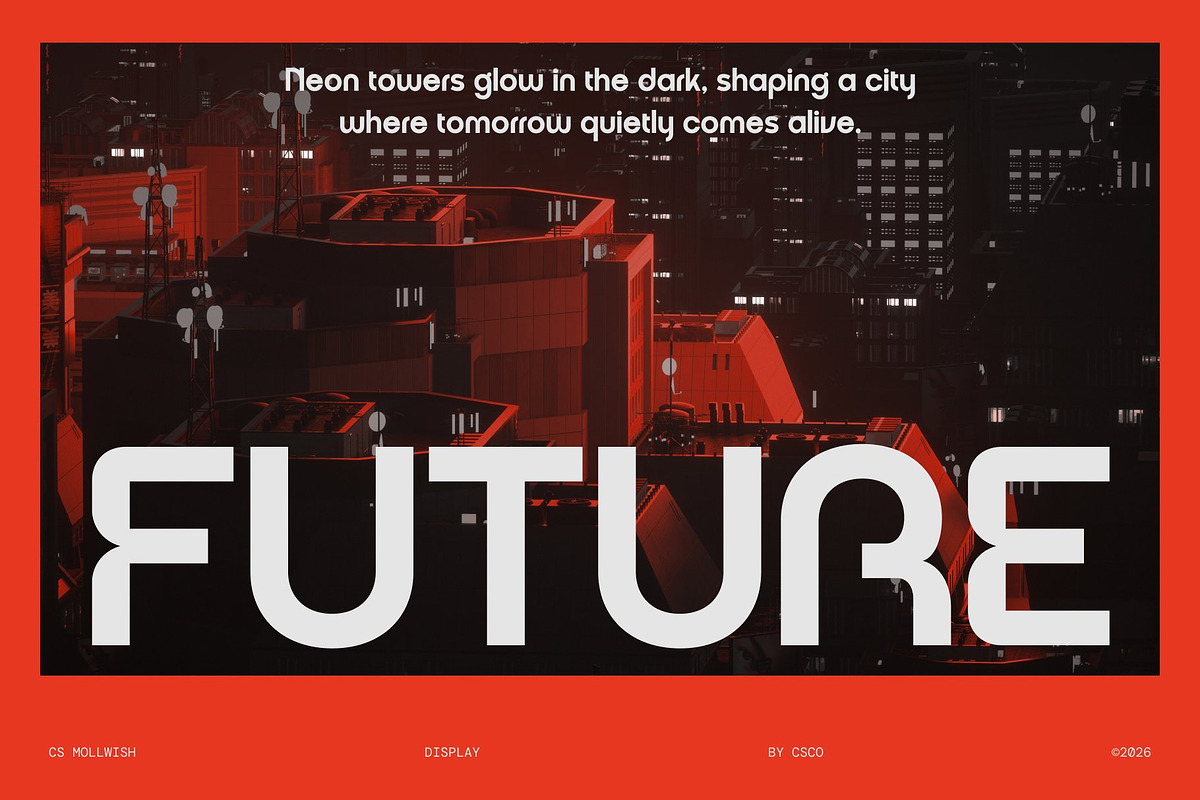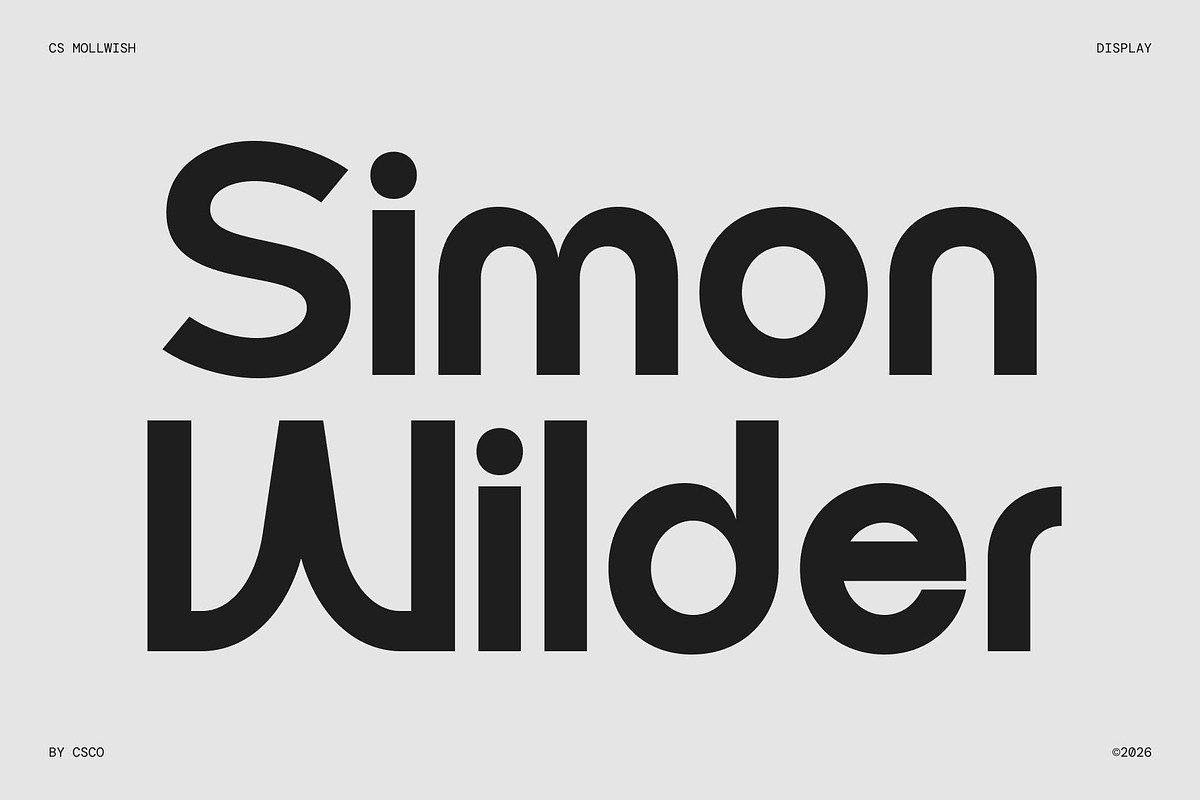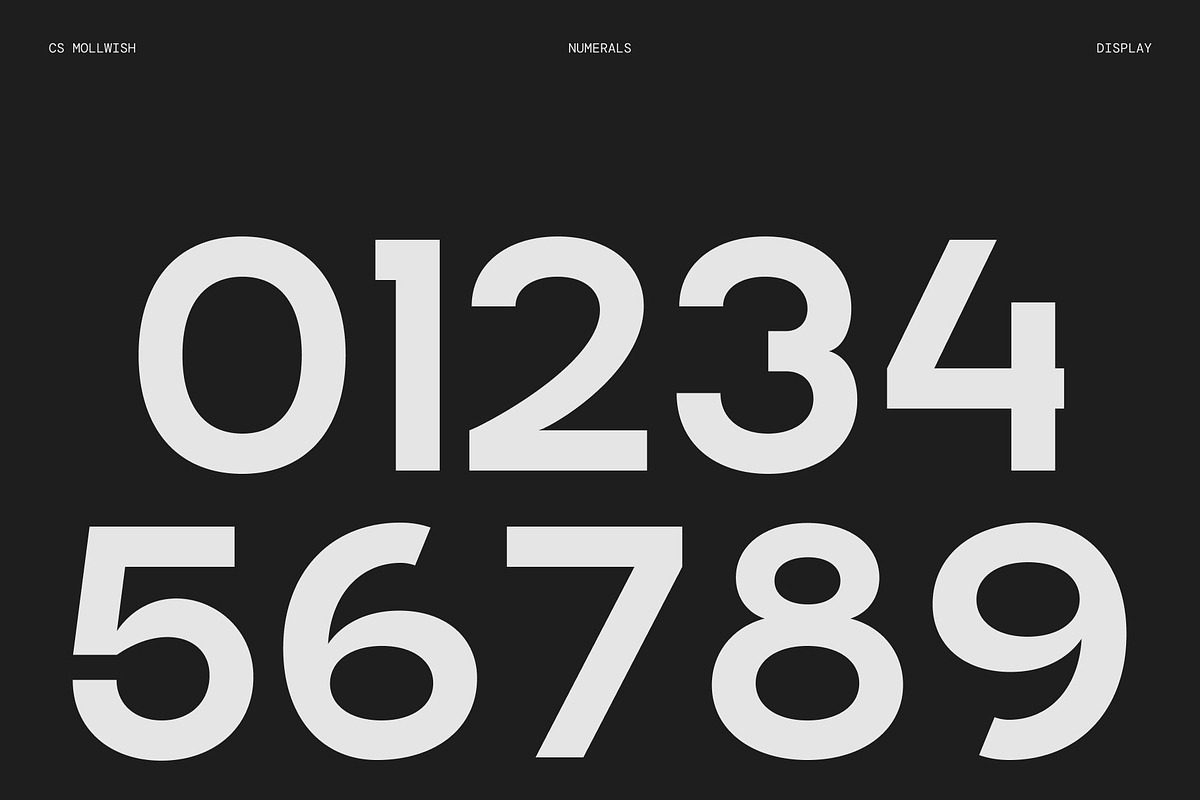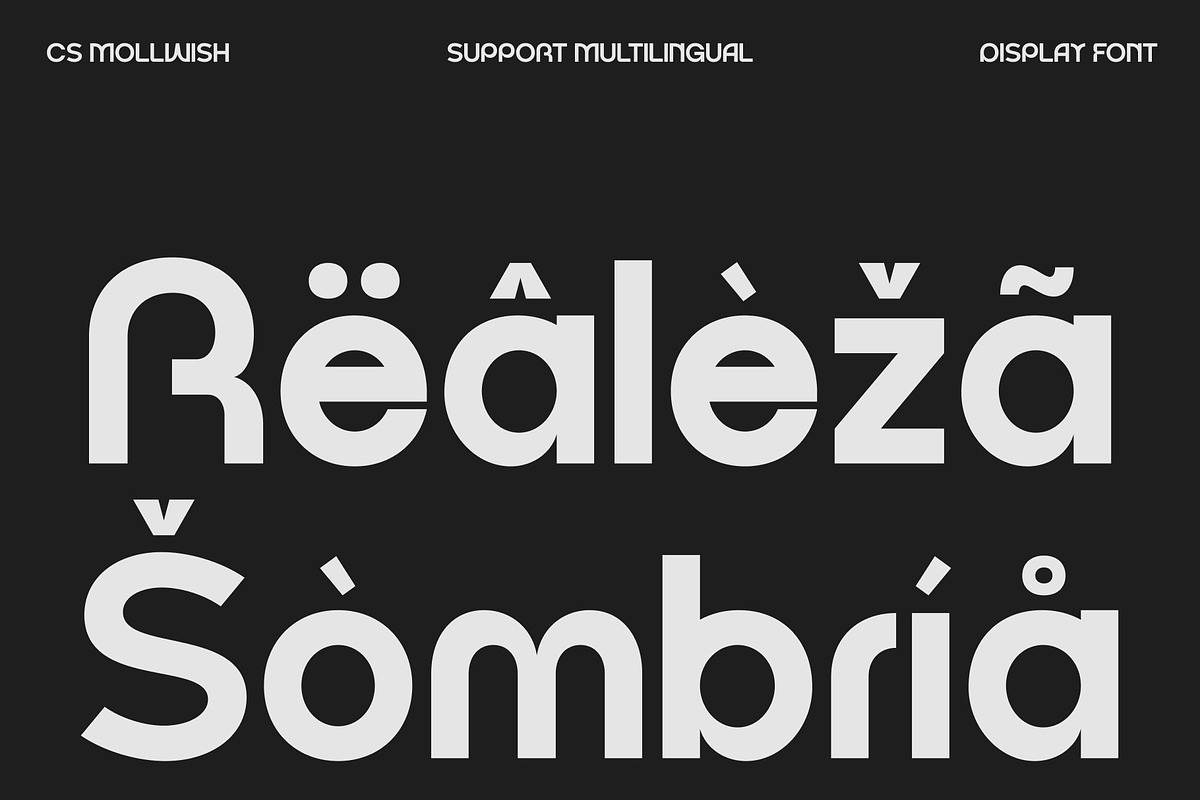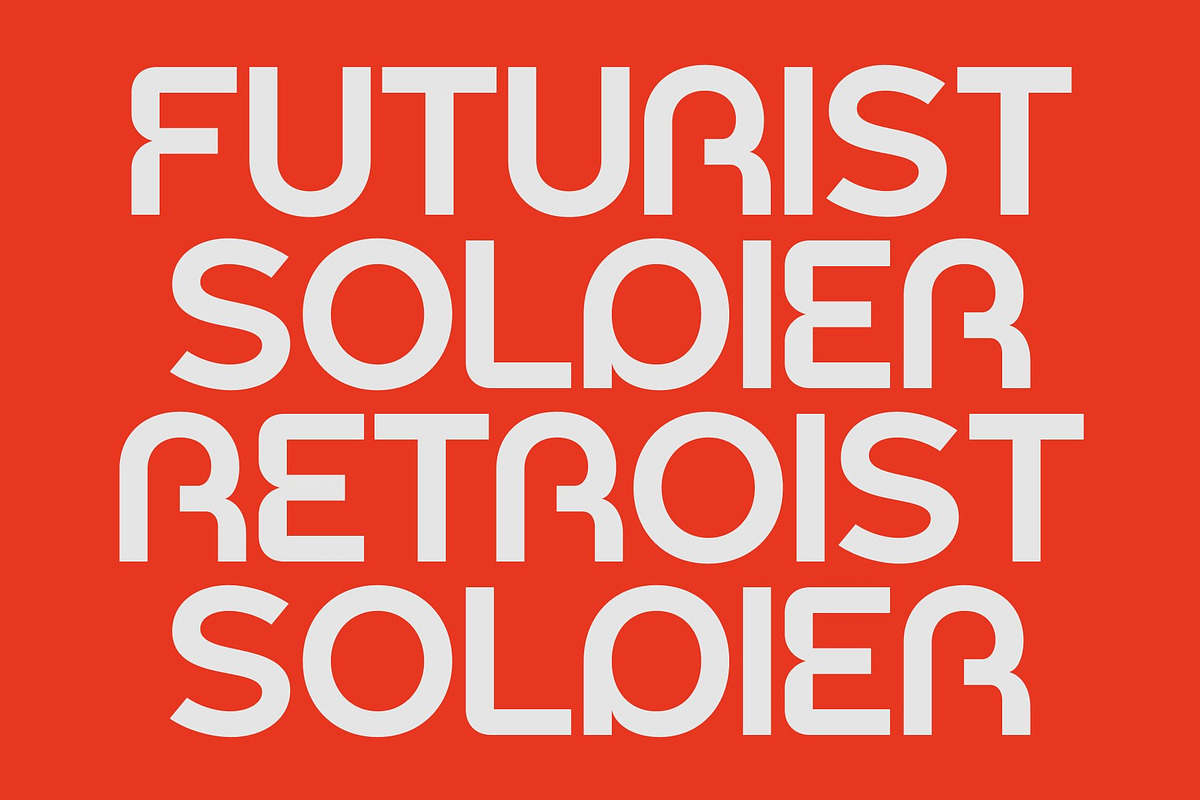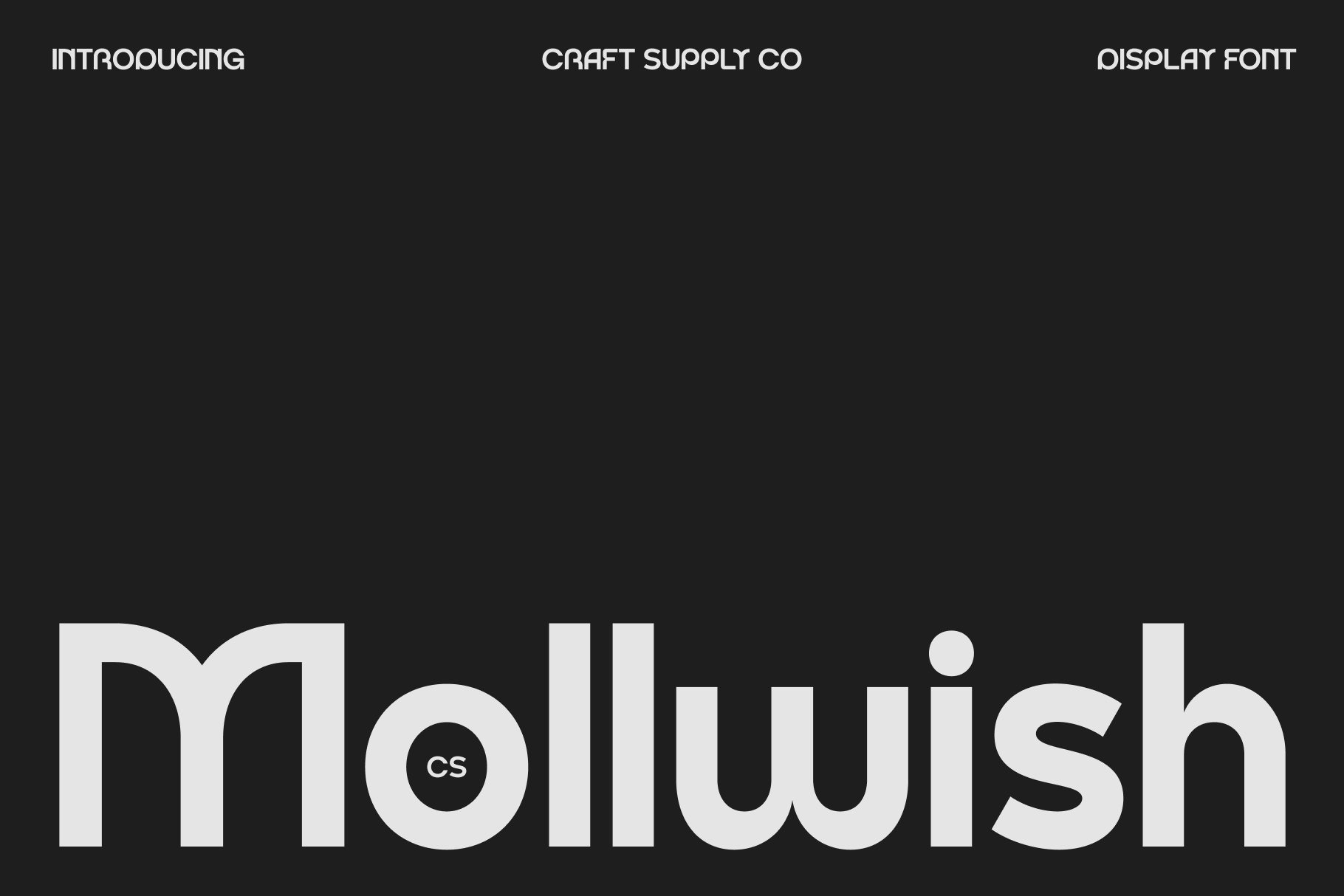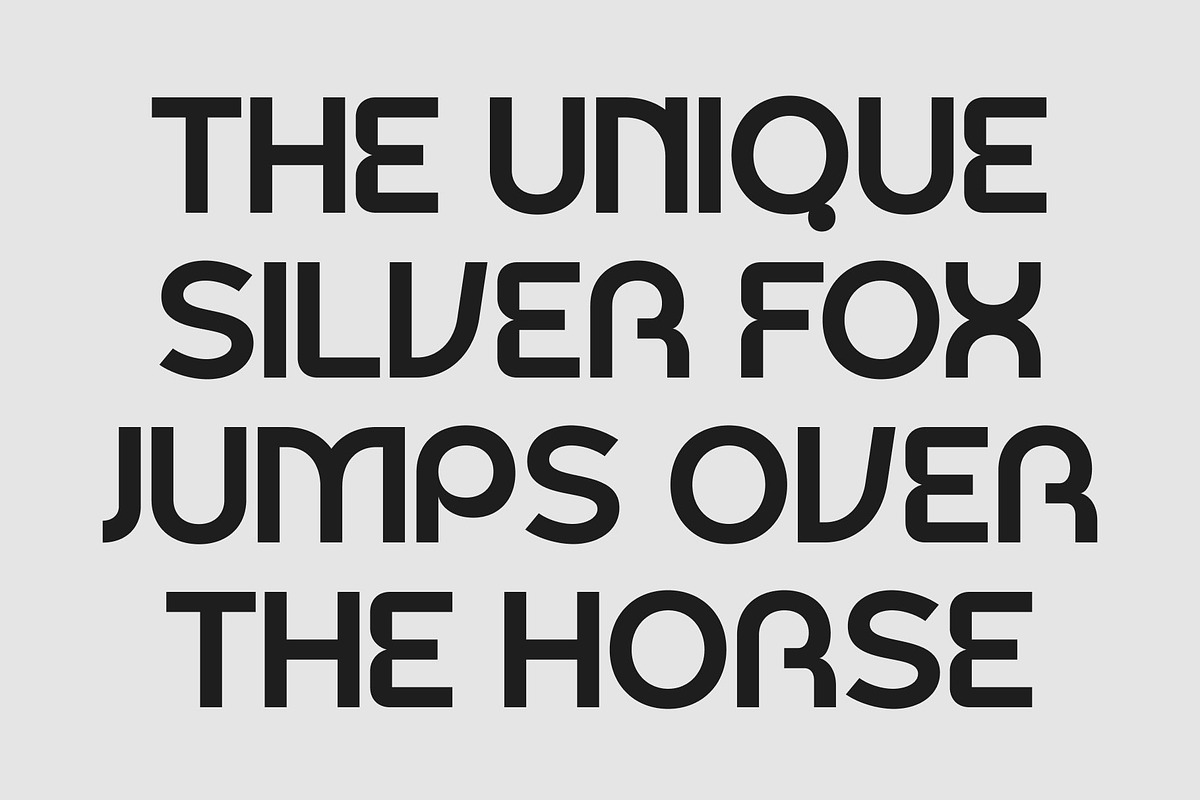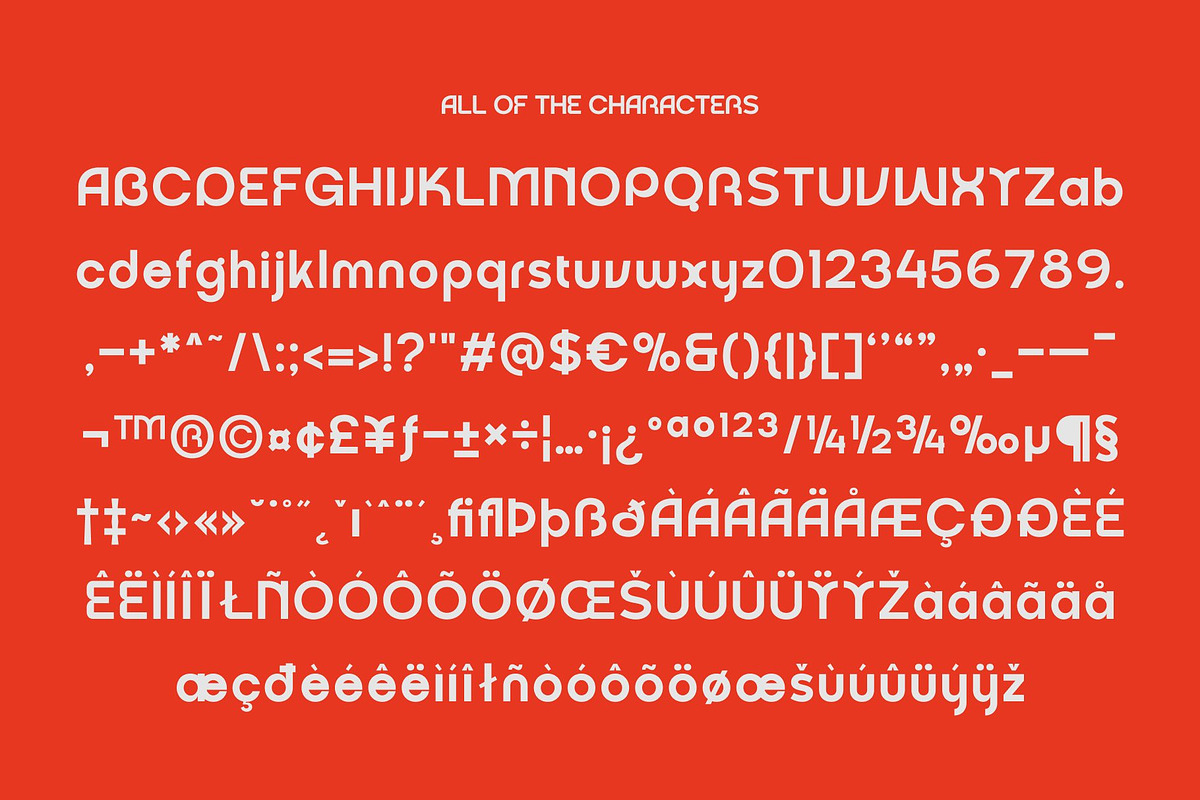
CS Mollwish – Modern Display Font
CS Mollwish – Modern Display Sans Serif Font with Fresh Look
Modern Display Sans Serif with Fresh Personality This is a modern display sans serif font designed to combine geometric precision with quirky, unique details. Its clean, structured forms convey confidence and clarity, while subtle playful elements add character and originality. This balance creates a font that feels both professional and visually distinctive, perfect for modern design contexts.
Geometric Shapes with Quirky Uniqueness The letterforms of this font are built on geometric foundations, giving the font a sleek, structured appearance. Combined with unexpected angles, curves, and playful touches, these shapes create a sense of uniqueness and energy. The result is a typeface that stands out without feeling chaotic, delivering a bold, masculine, and confident presence.
Futuristic Edge with Modern Style This font carries a subtle futuristic vibe, making it feel contemporary and forward-thinking. Its modern display style works well in digital applications, branding, and creative layouts, adding a cutting-edge aesthetic to designs that aim to feel current and stylish.
Perfect for Modern Branding and Digital Design Ideal for modern design, digital branding, posters, and other contemporary applications, excels in headlines and display use. Its combination of geometric precision, quirky details, and confident presence makes it perfect for projects that require a modern, fresh, and visually memorable typographic voice.